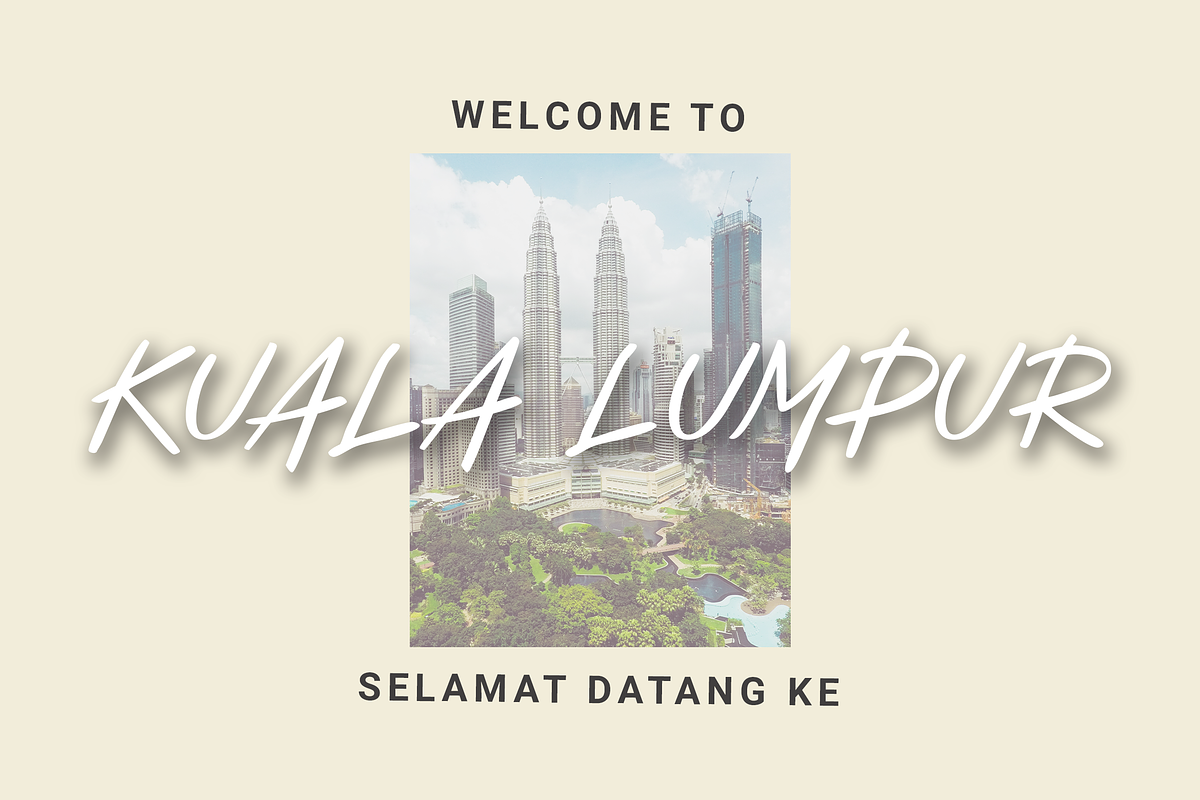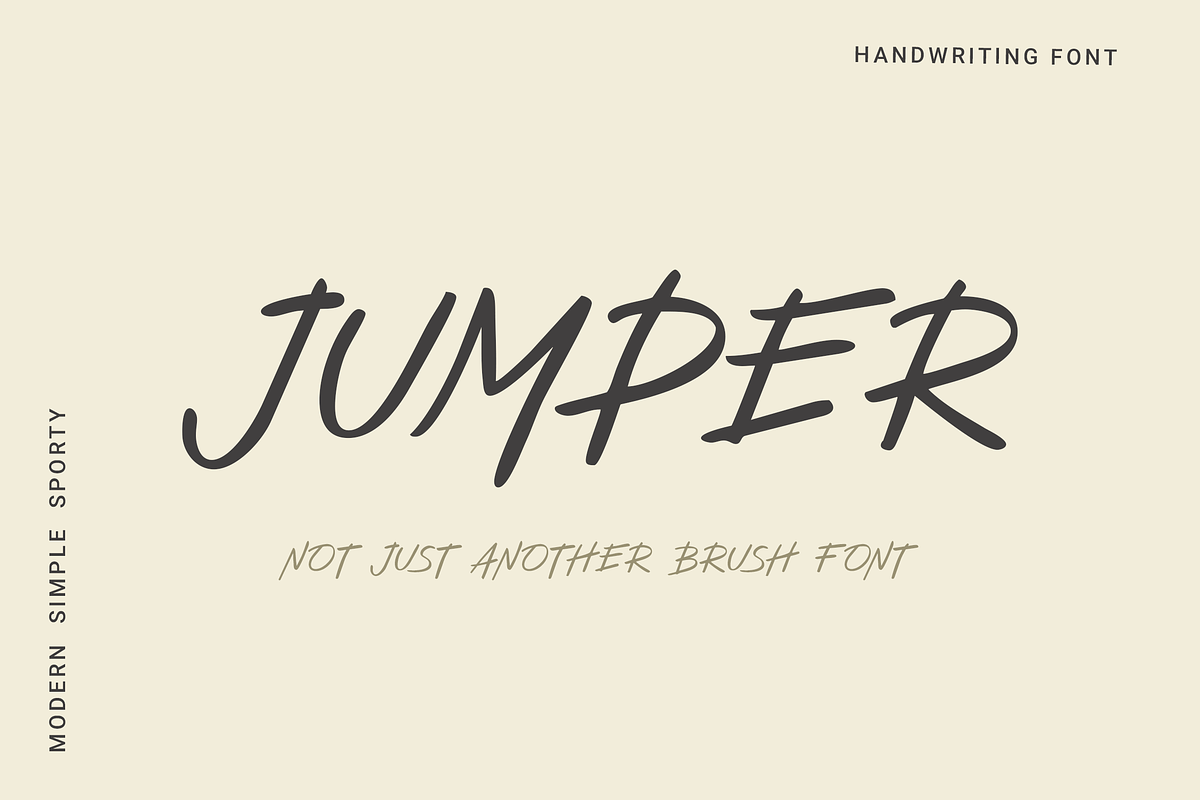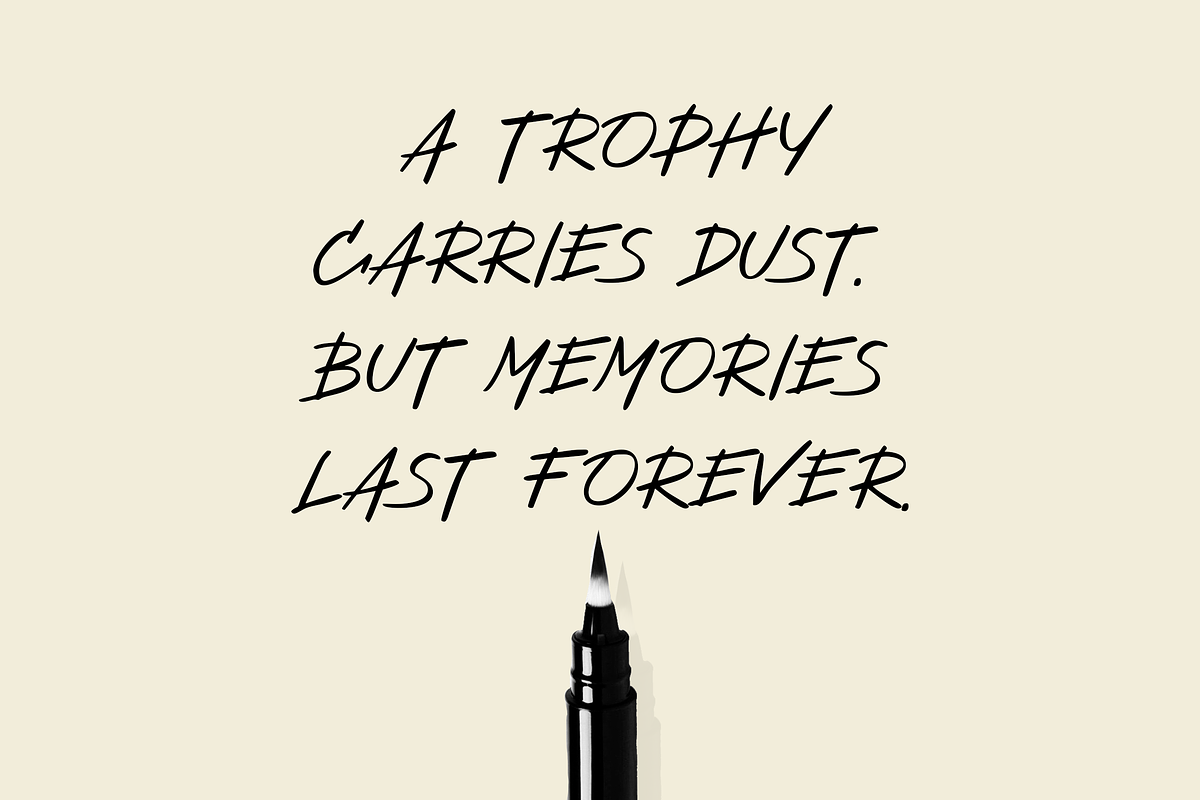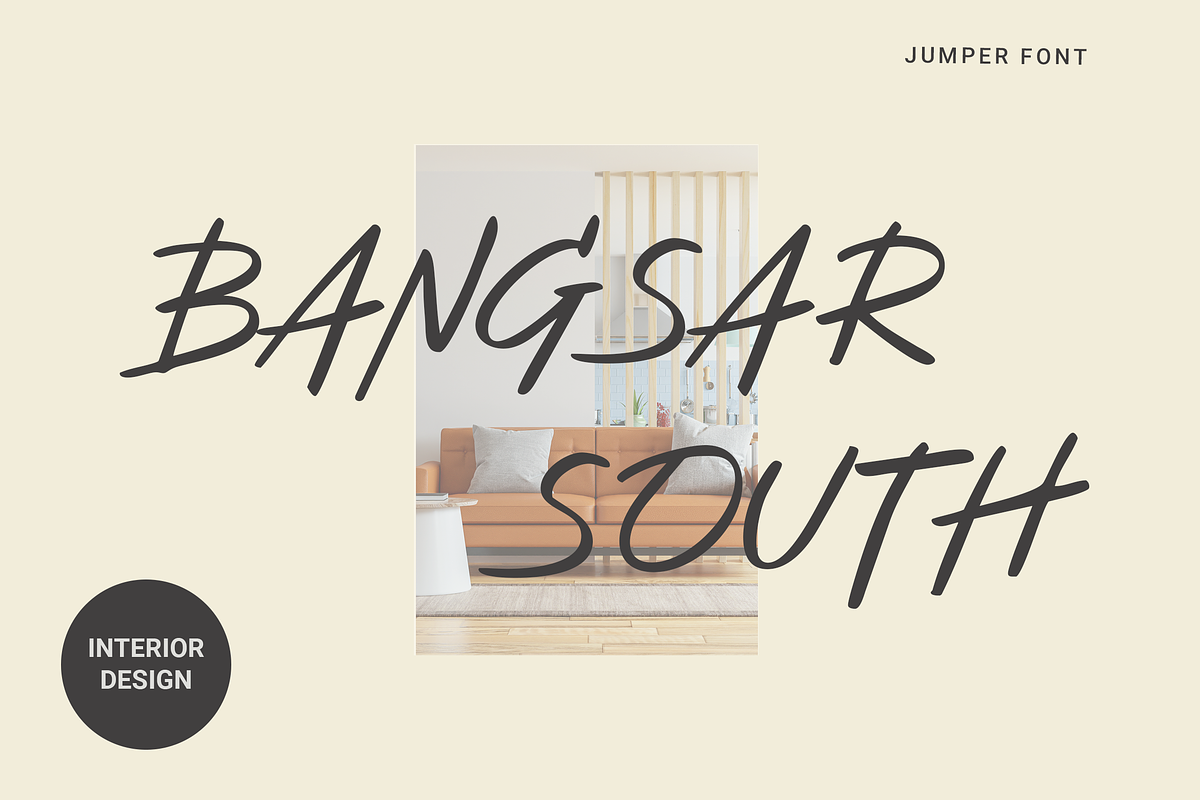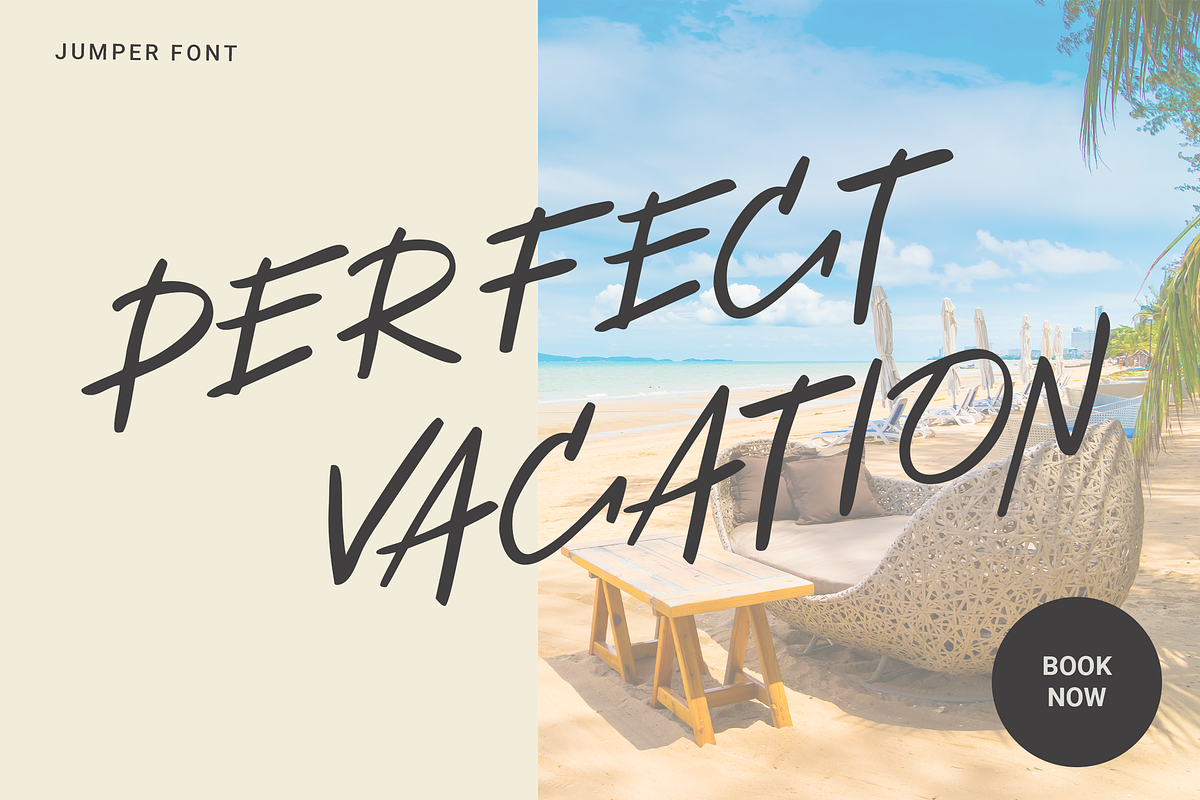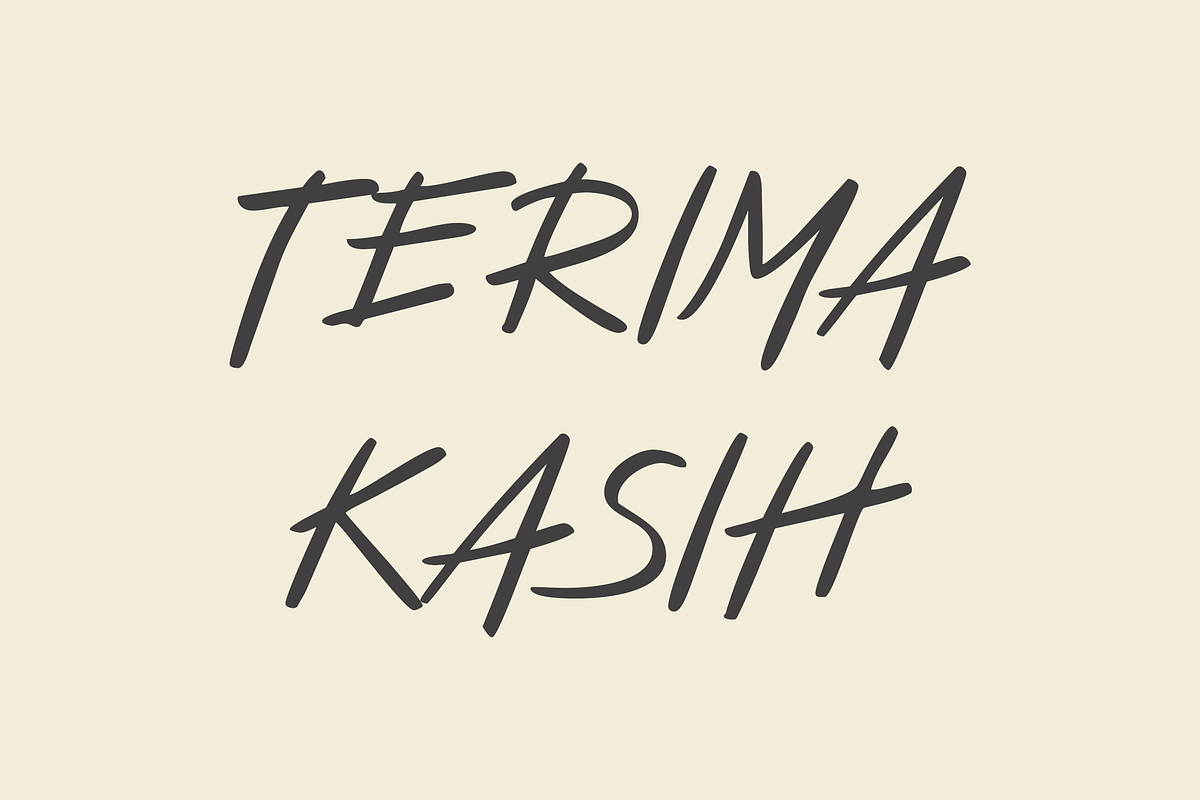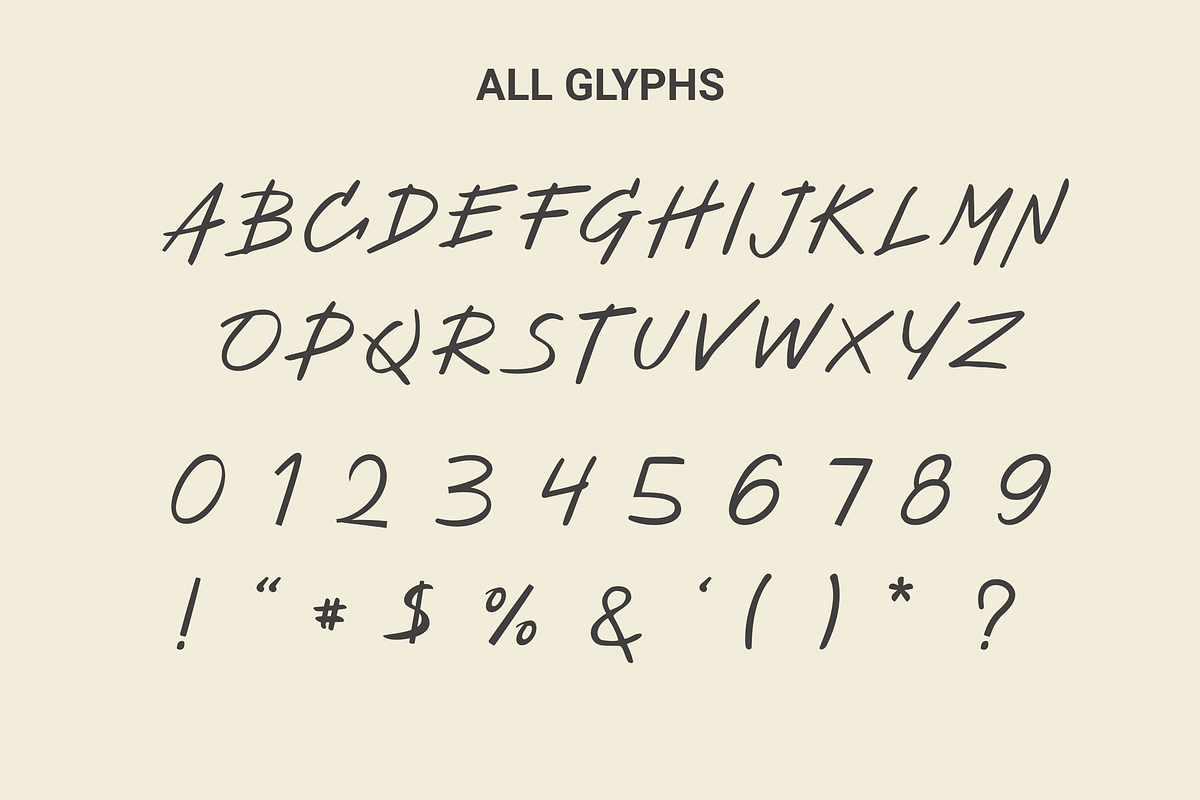
Jumper | Modern Brush Font
Jumper is a street-wise yet elegant brush font showing spirit and luxury feel. With the sharp and strong strokes detail, Jumper is ideal for logos, apparel, quotes, product packaging or anything that need an extraordinary typographic design.
With extra attention to quick strokes and sharp details, Jumper is ideal for logos, apparel, quotes, product packaging, or anything which needs a typographic turbo-boost.